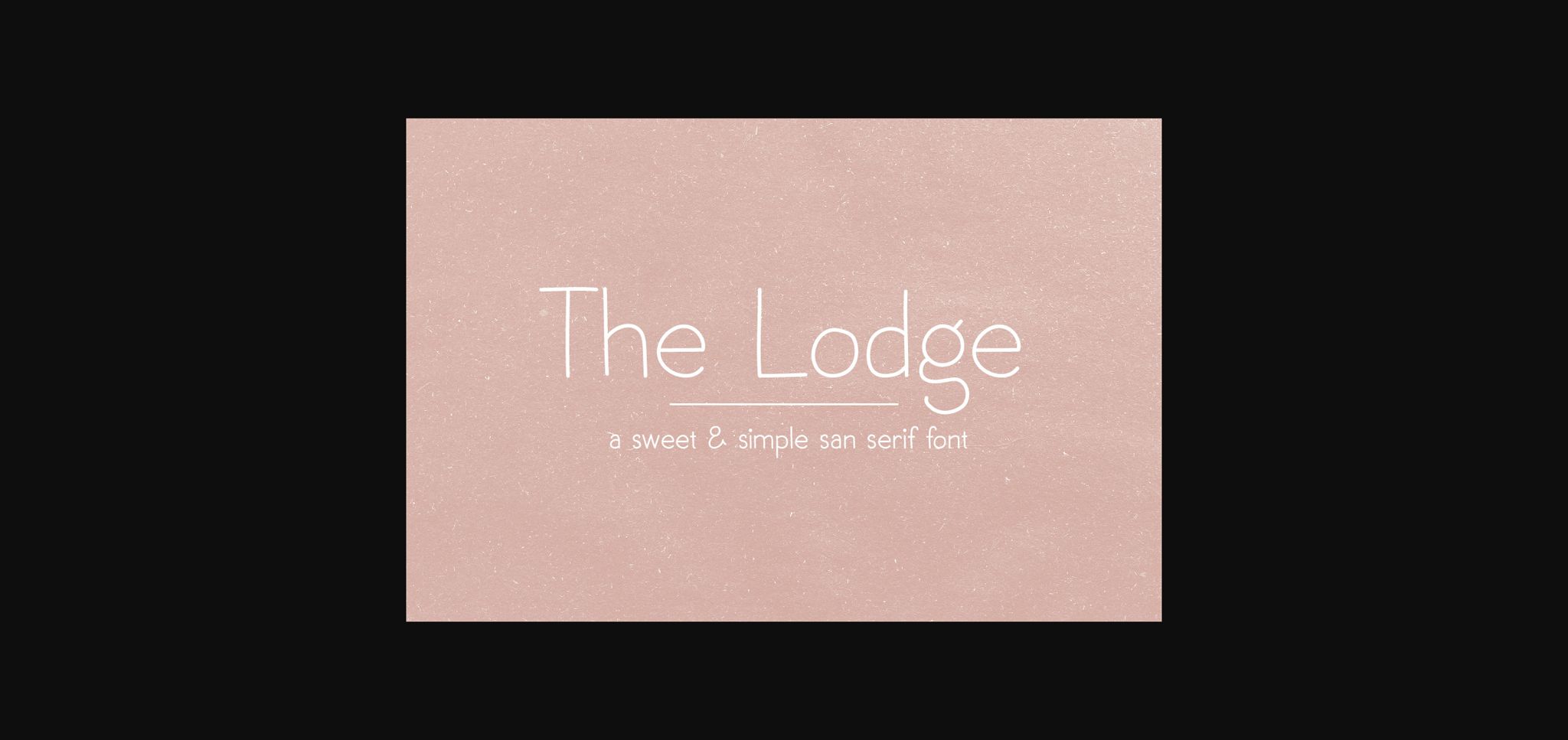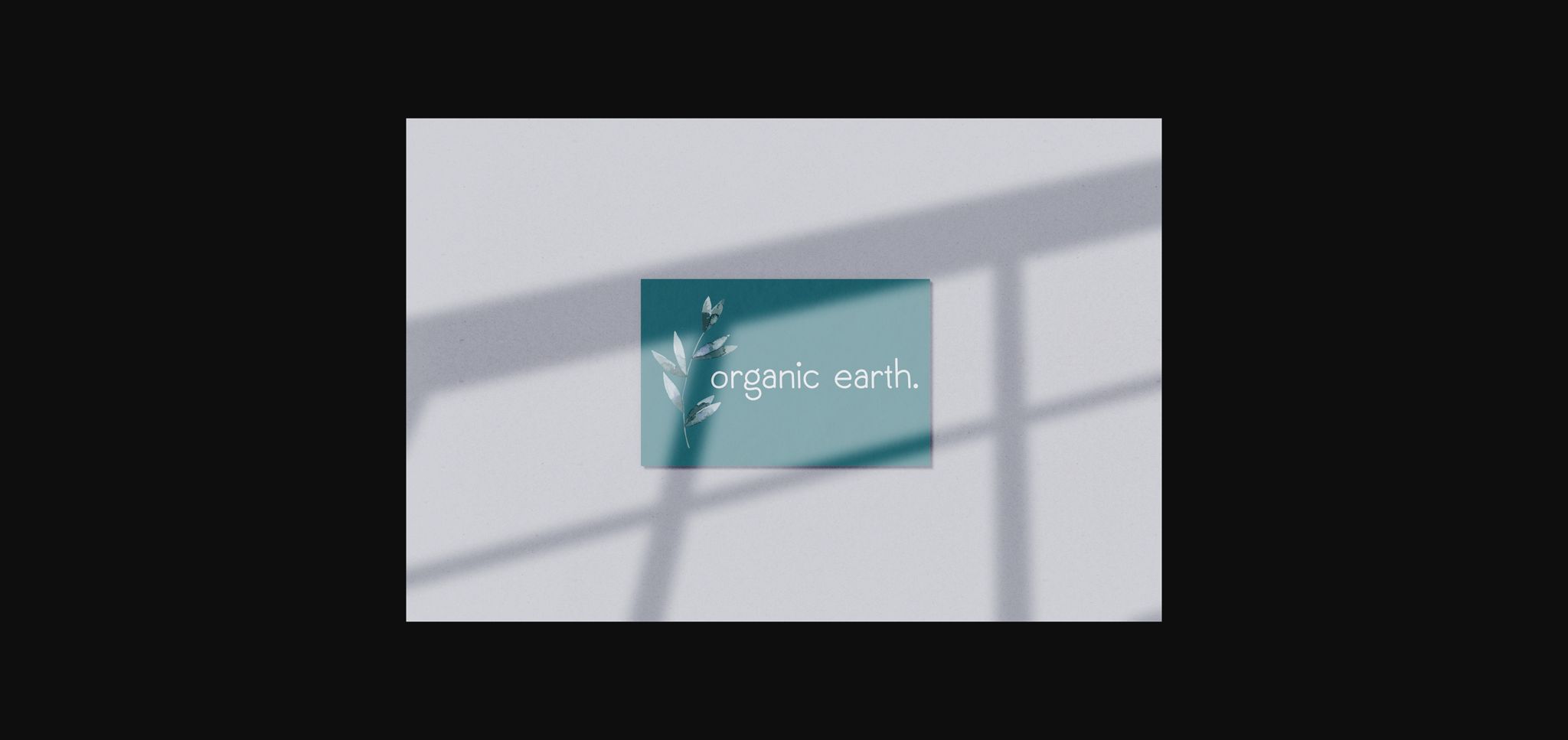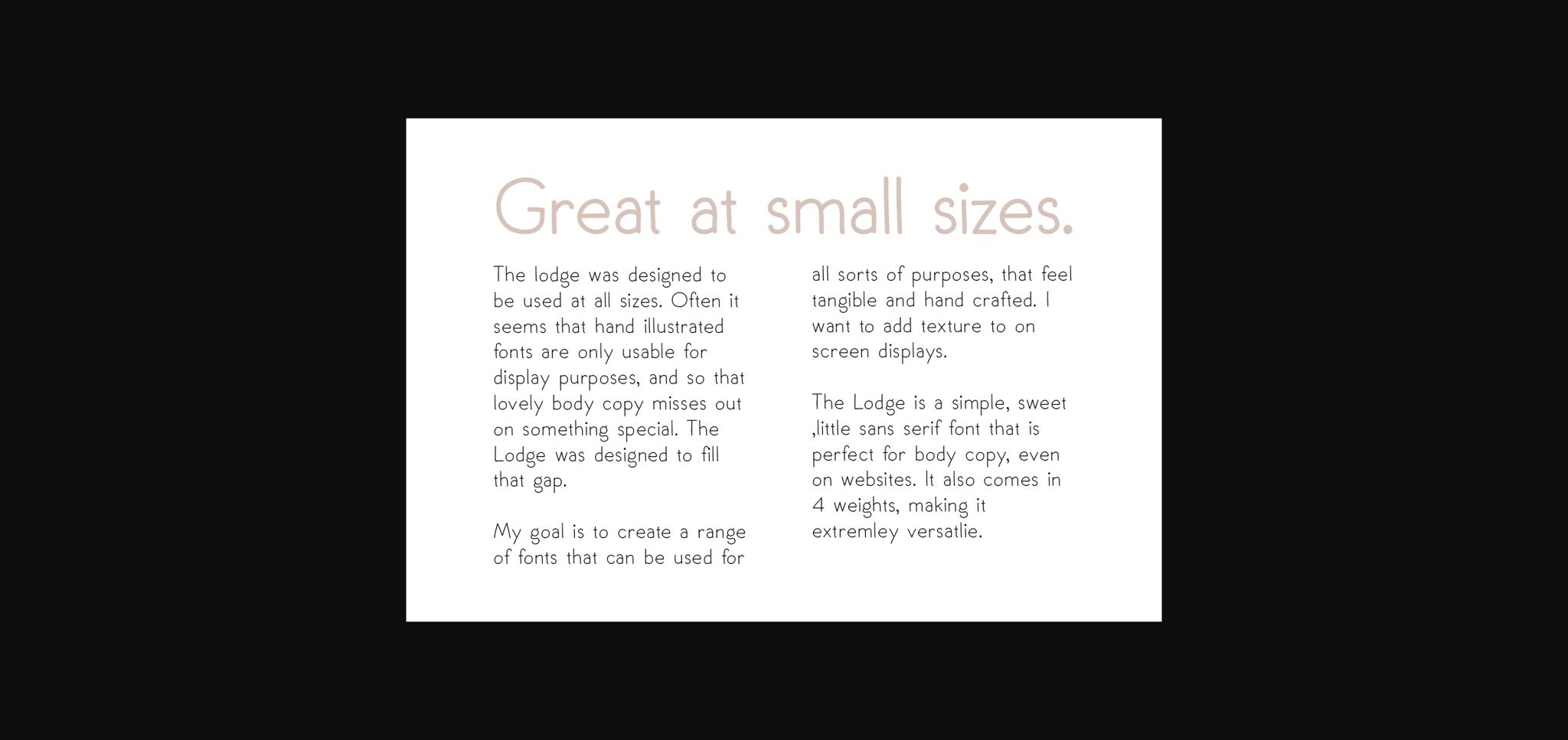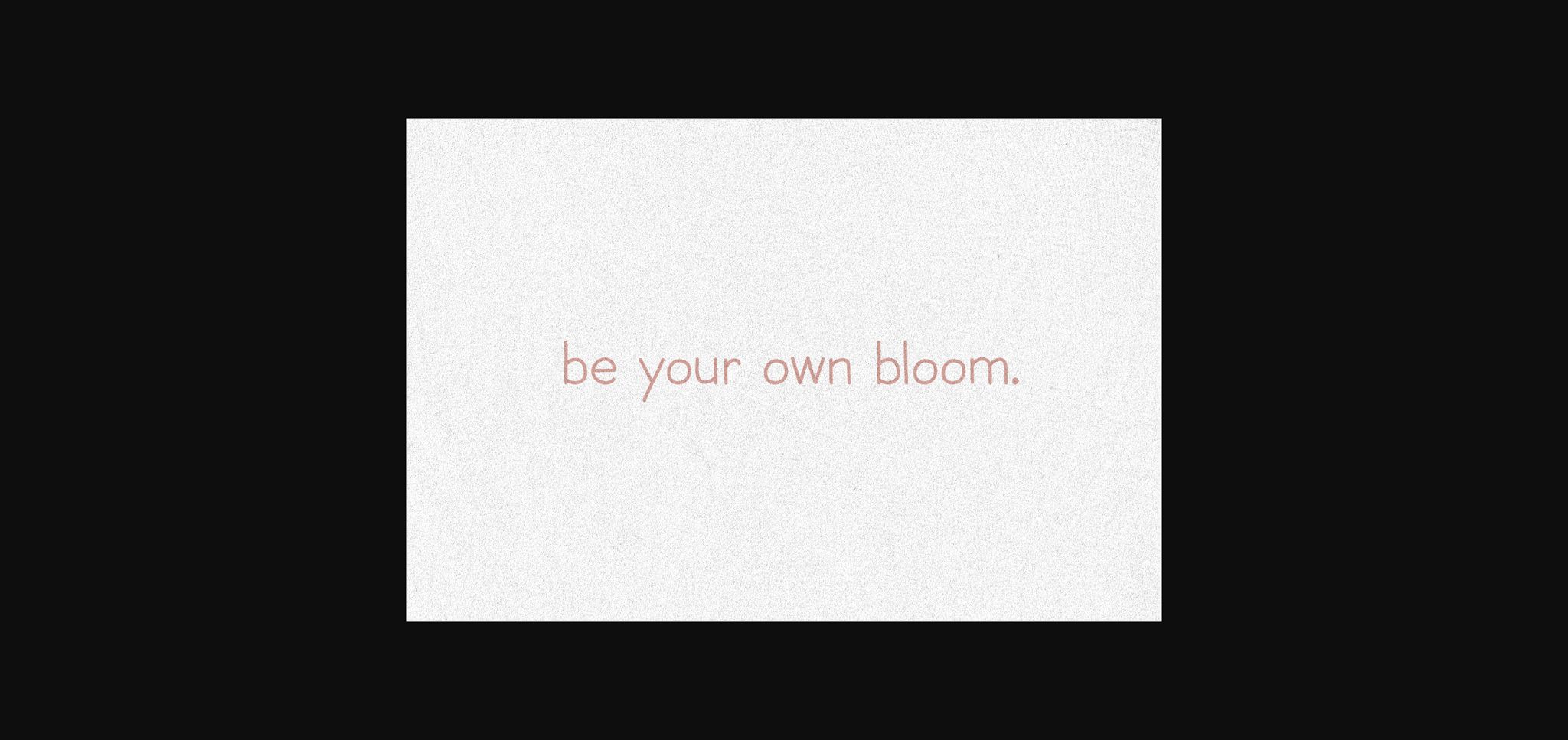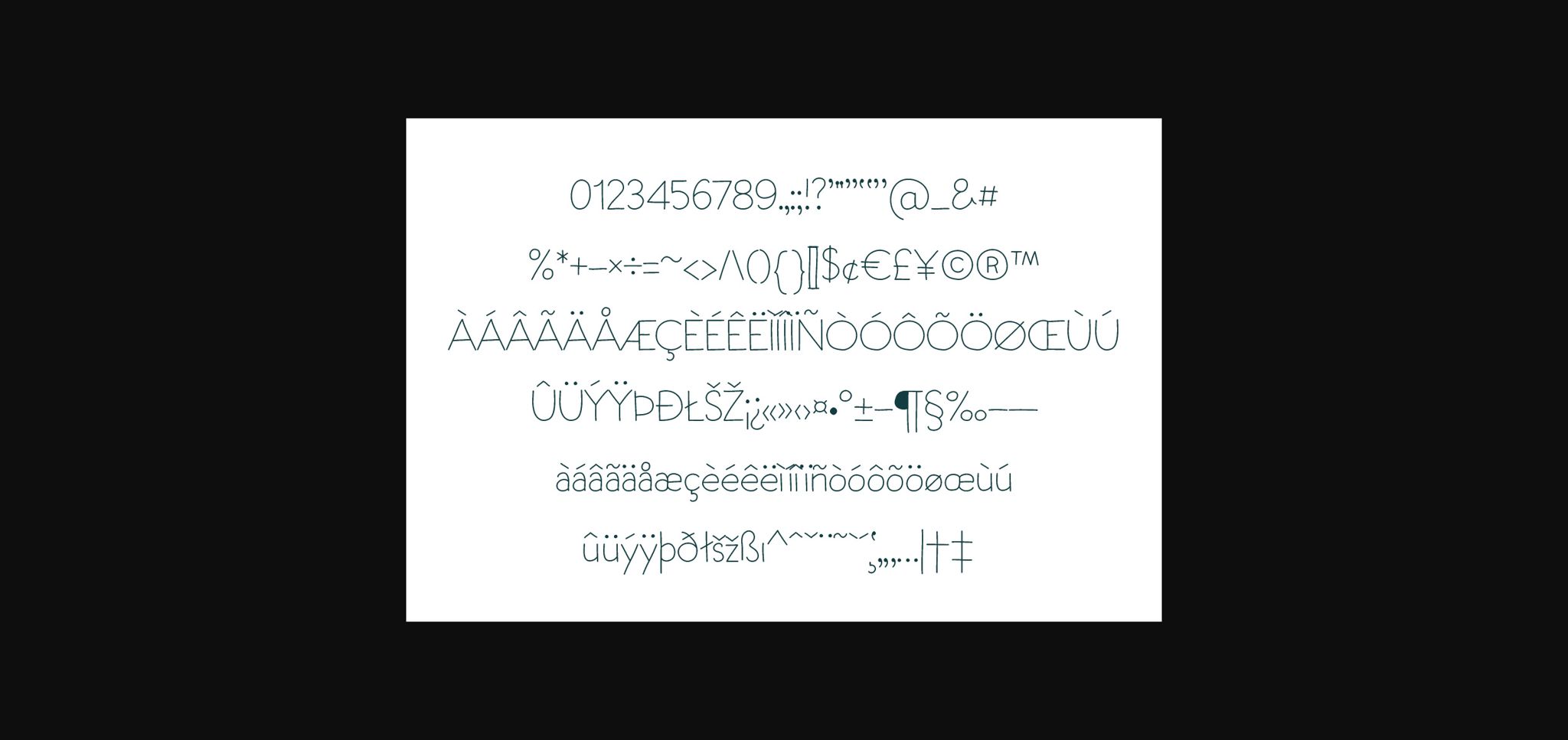
About The Lodge Font
This is The Lodge! It is a sweet and simple sans serif font that is perfect for body copy and large amounts of text. This typeface comes in 4 weights as well, giving you heaps of flexibility. It will elevate a wide range of design projects to the highest level, be it branding, headings, wedding designs, invitations, signatures, logos, labels, and much more!